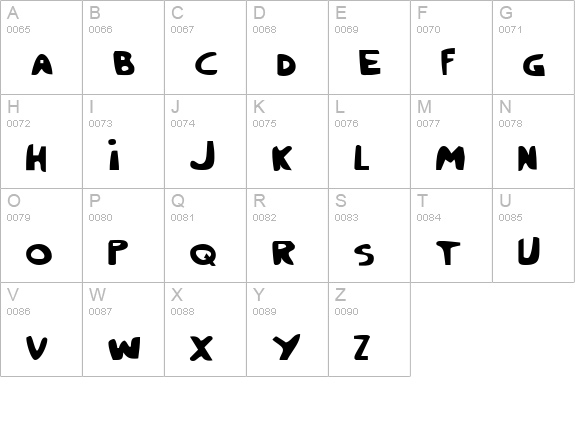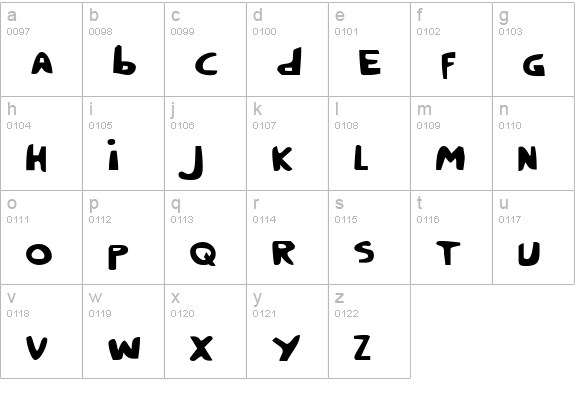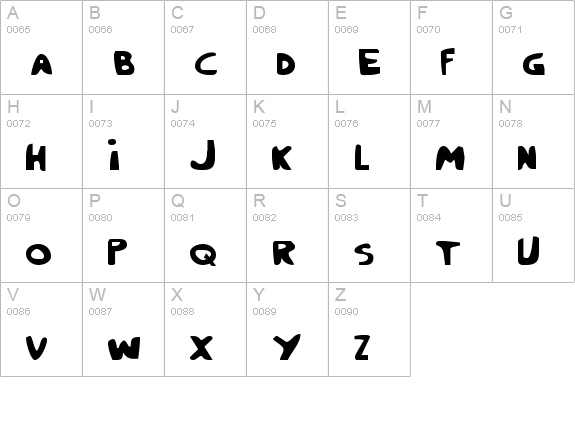
Introducing the whimsical and playful Crappity-Crap-Crap font! This unique typeface is perfect for adding a touch of fun and creativity to your design projects. With its quirky design and irregular shapes, Crappity-Crap-Crap is sure to make a statement and stand out from the crowd. Whether you're working on a poster, logo, or social media graphic, this font will add a touch of personality and charm. And the best part? Crappity-Crap-Crap font is completely free to download at FontsMarket.com! That's right, you can get your hands on this delightful font without spending a dime. So why wait? Head over to FontsMarket.com now and add Crappity-Crap-Crap to your collection of fonts today!